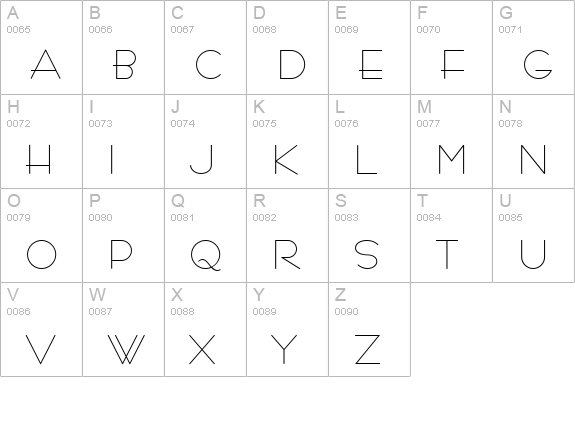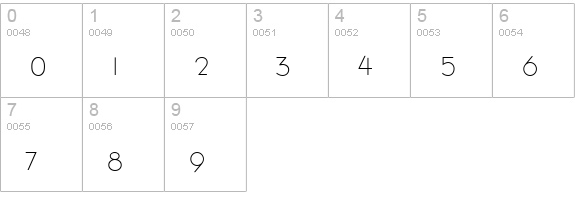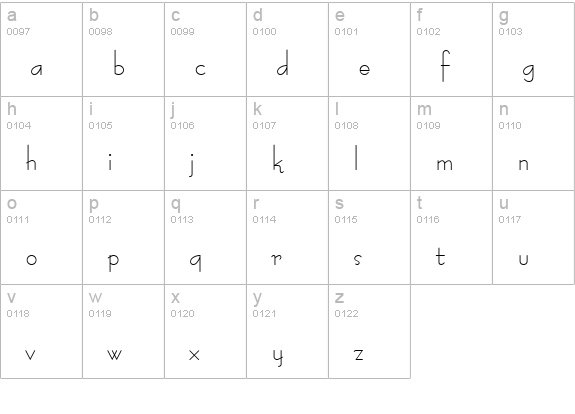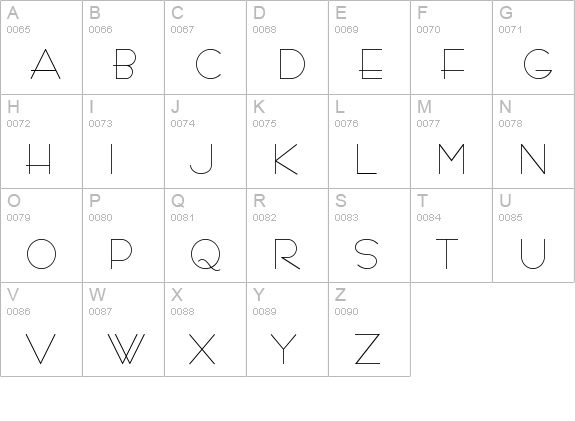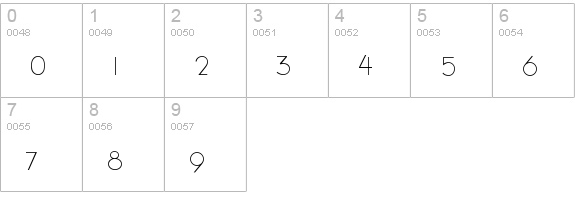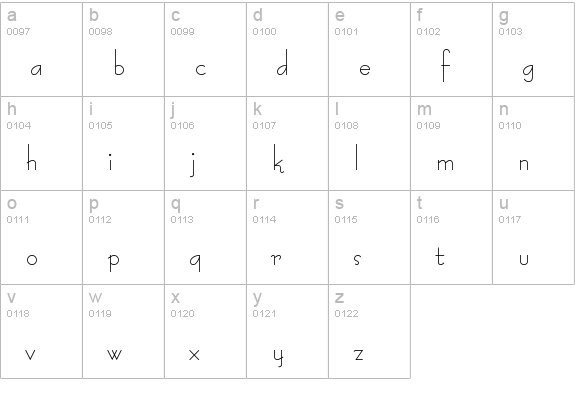
CgBernhardFashion font exudes elegance and sophistication with its sleek and stylish design. This versatile typeface is perfect for adding a touch of class to any project, whether it be for branding, editorial design, or advertising. The font features clean lines and a modern aesthetic that make it stand out from the crowd. And the best part? CgBernhardFashion font is available for free download at FontsMarket.com. This means you can access this high-quality font without any cost, making it a fantastic choice for designers looking to enhance their work without breaking the bank. Don't miss out on this amazing opportunity to elevate your designs with the timeless beauty of CgBernhardFashion font.